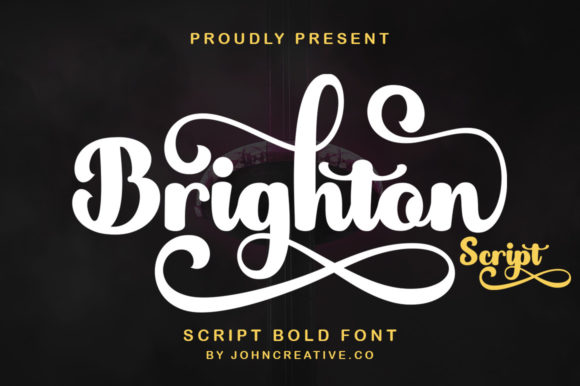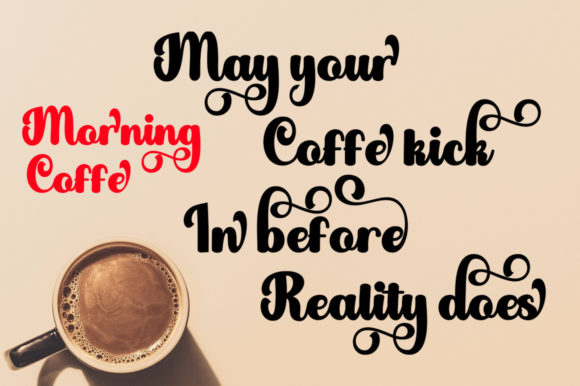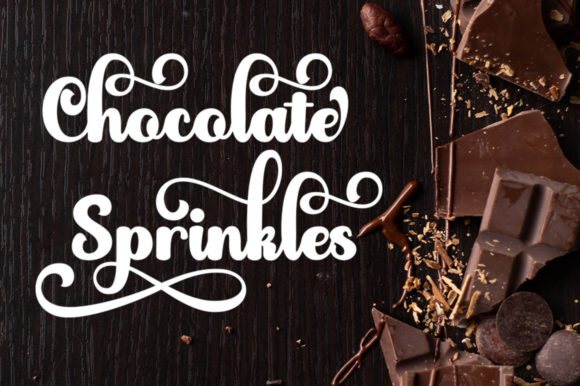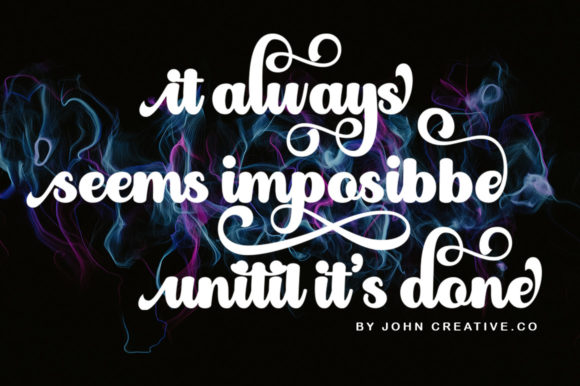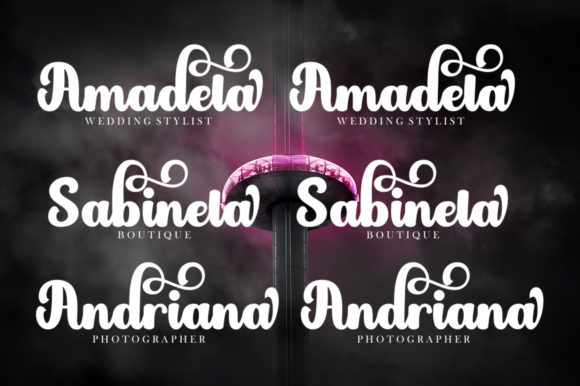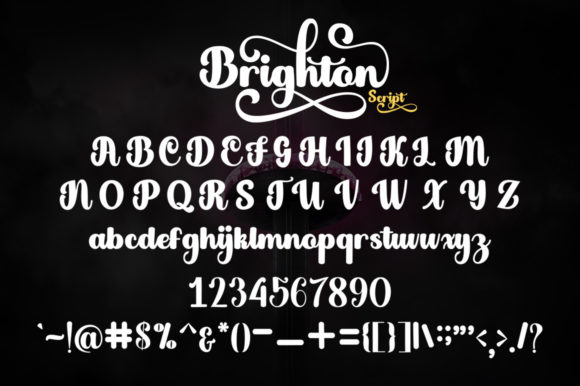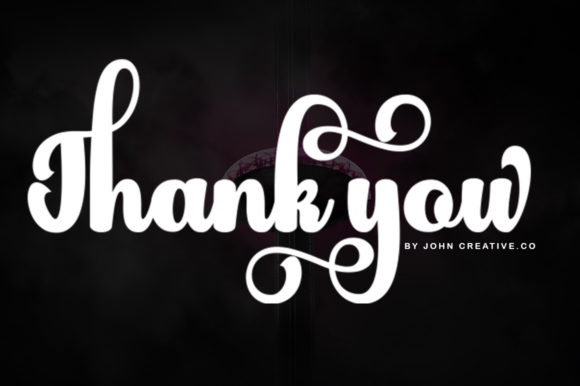
Brighton Script Font
About Brighton Script Font
Brighton Script is a sophisticated handwritten font that’s great for delivering any message with confidence, authenticity and charm. It will elevate a wide range of crafting ideas, from cards, to branding, labels and much more.